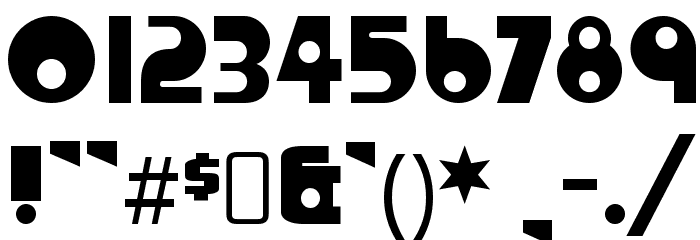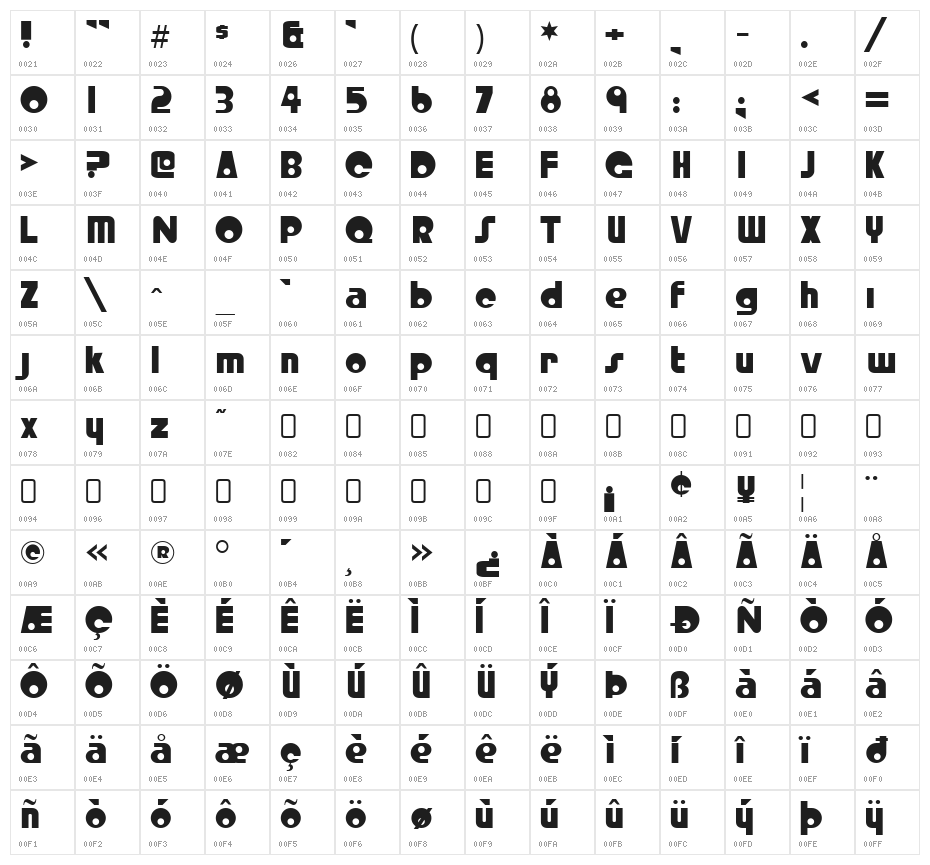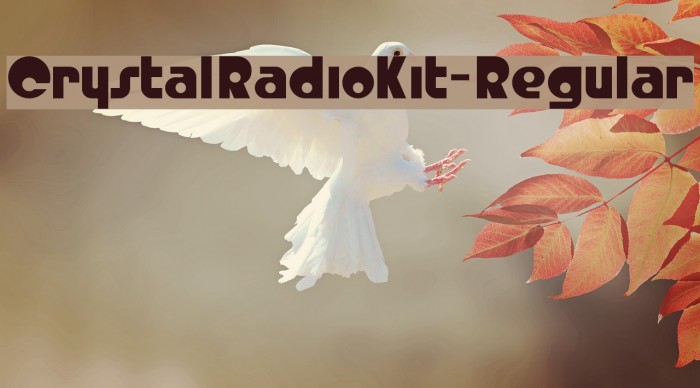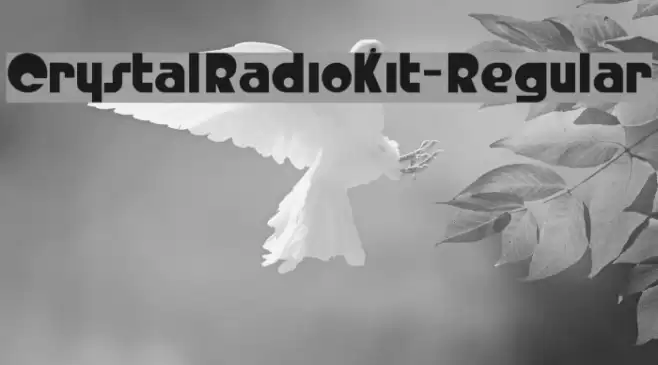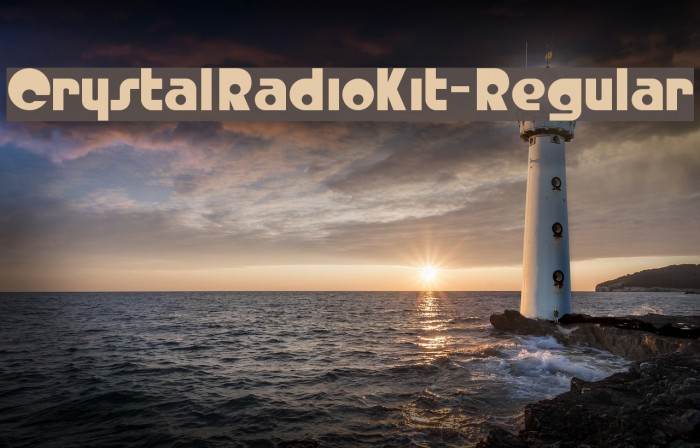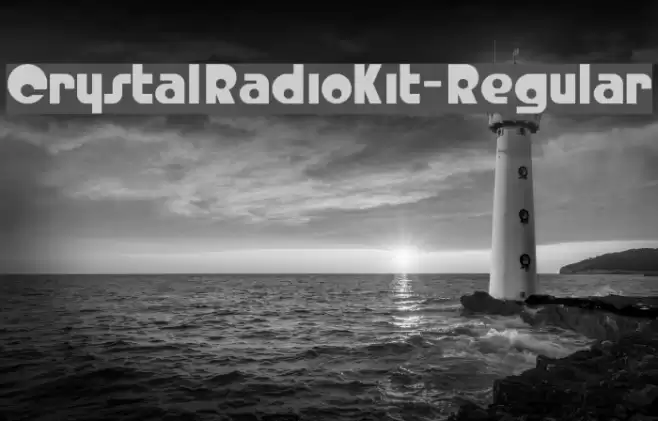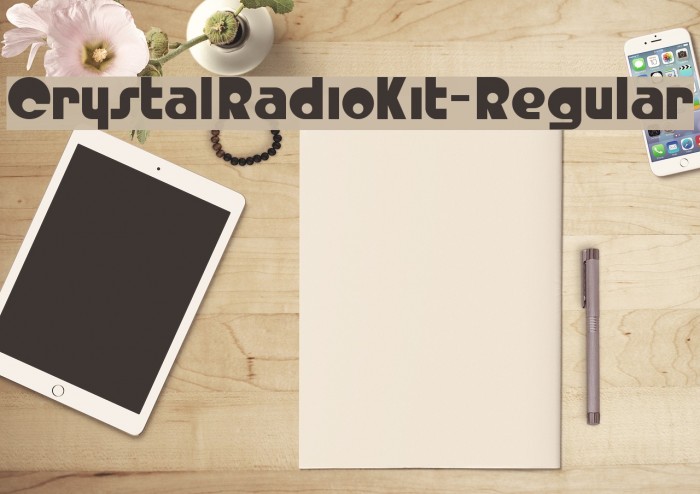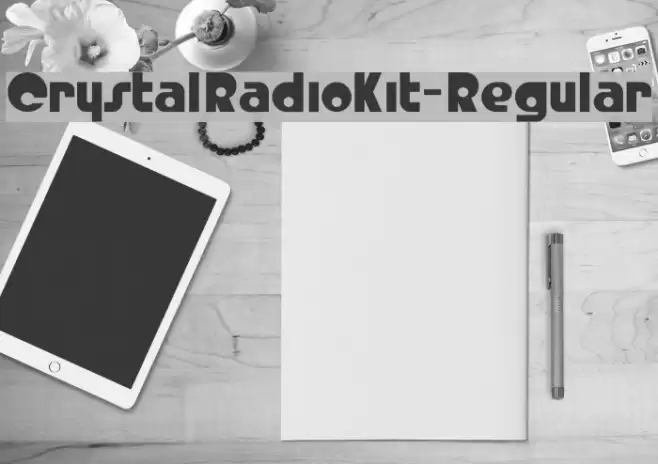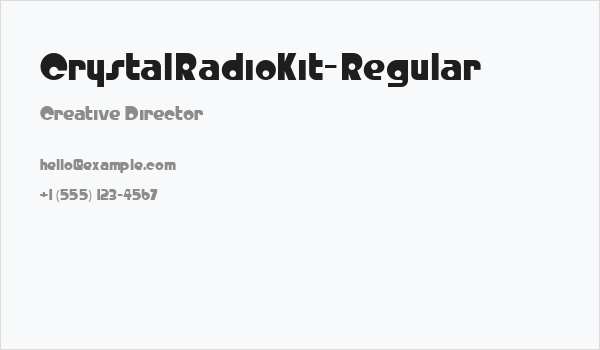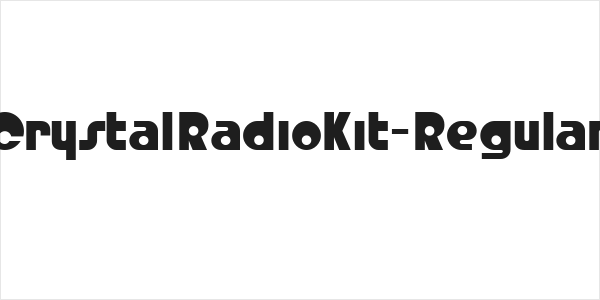
CrystalRadioKit-Regular Font
CrystalRadioKit-Regular Description
This font features a bold, geometric design with a distinctly modern and playful aesthetic. The characters are constructed with thick, uniform strokes, giving them a strong presence. The use of circular and angular elements creates a dynamic and engaging look. The uppercase letters are particularly striking, with unique shapes that stand out. The lowercase letters maintain the same boldness, ensuring consistency across the typeface. Numbers and special characters are designed with the same attention to detail, making them easily legible and visually appealing. This font is ideal for projects that require a bold statement and a modern touch.
| Proposed Projects | Ideal for branding, posters, headlines, and any project needing a bold, modern look. |